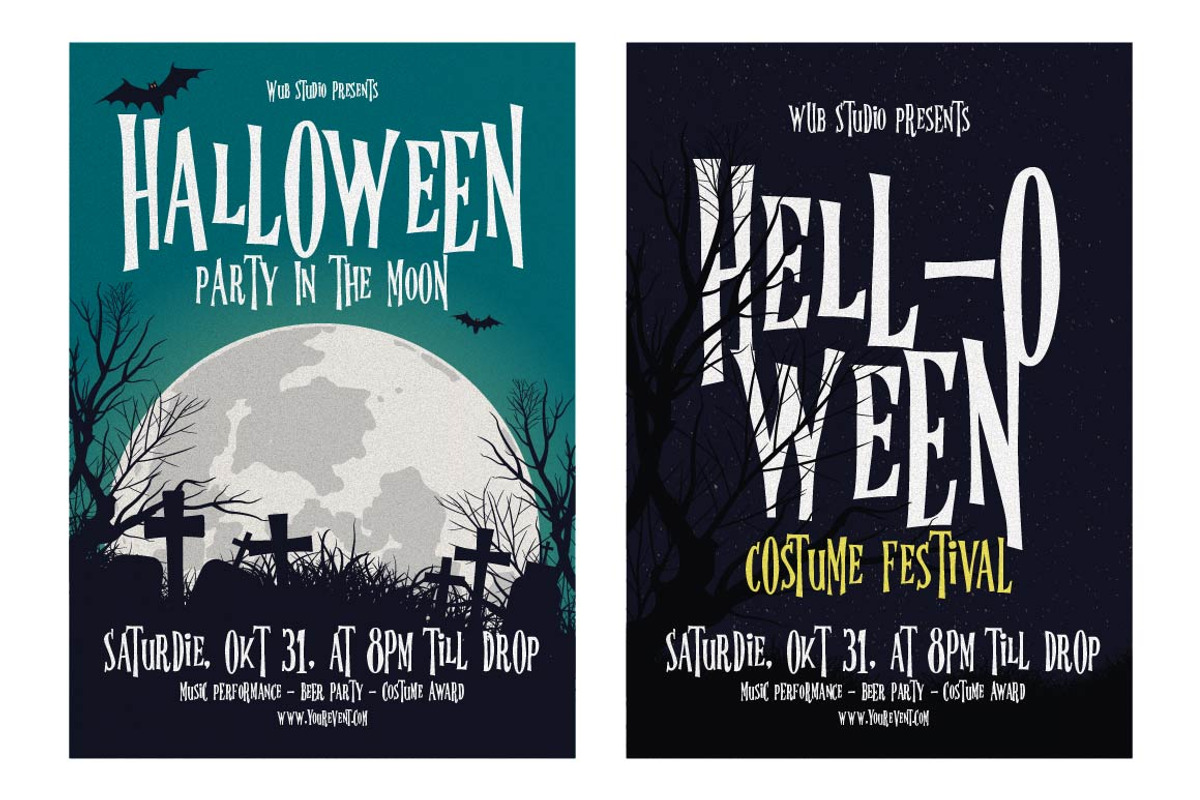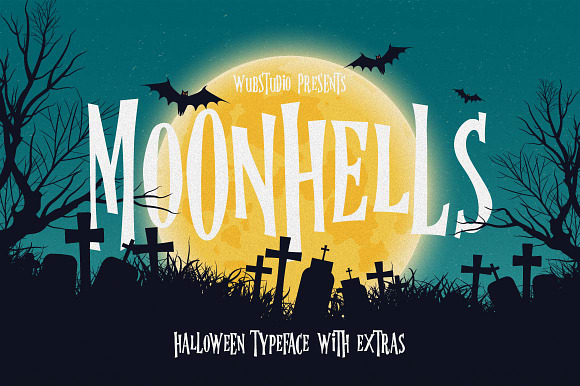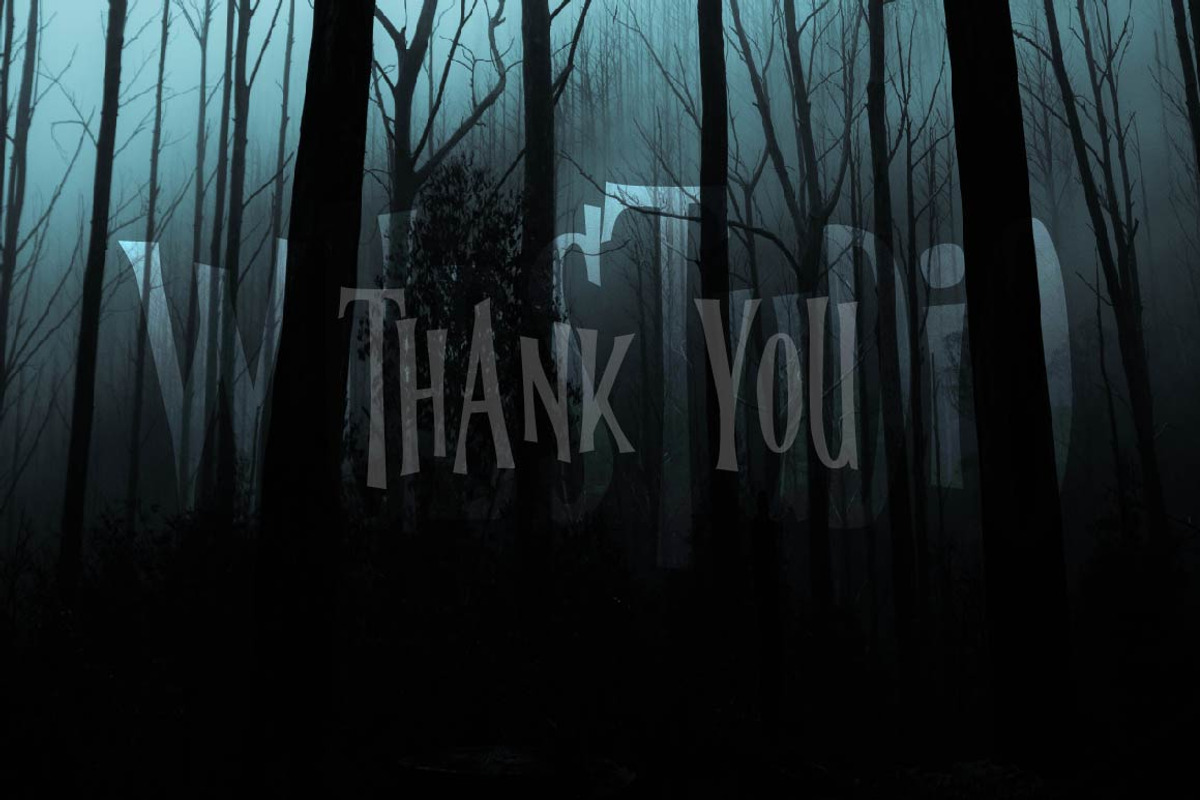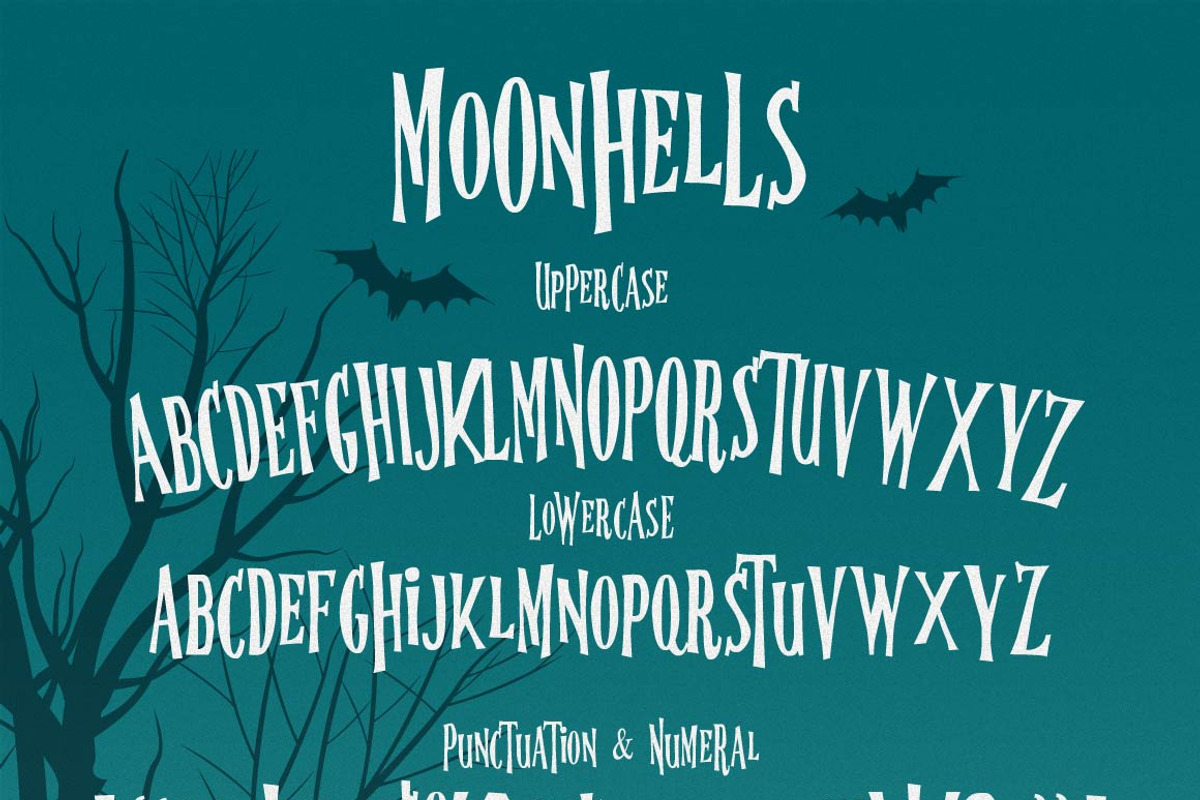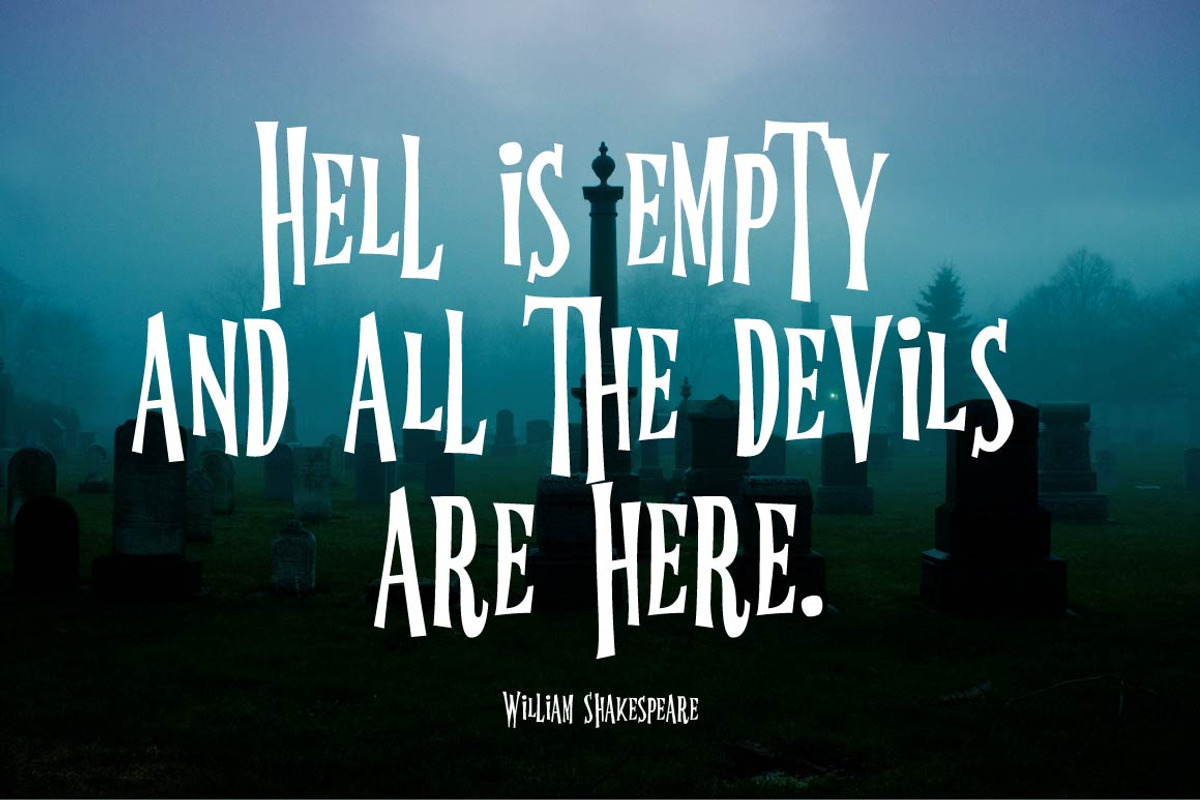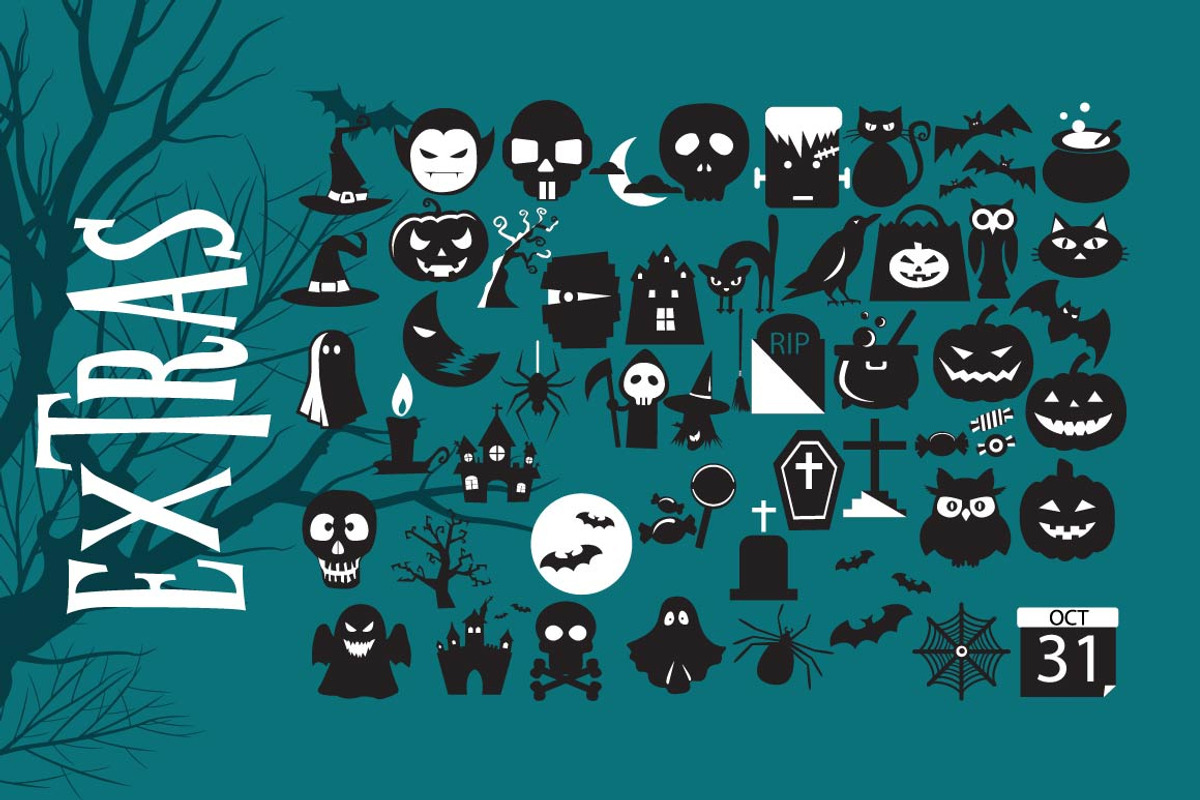
Moonhells Typeface + Extras
Moonhells is a font created to complement your Halloween Party. This font is very strong character. Ceram, Horror, and Fear. This font is perfect for making Halloween poster or flyer.
This font is equipped with several bonuses, namely: flyer and Halloween icon.